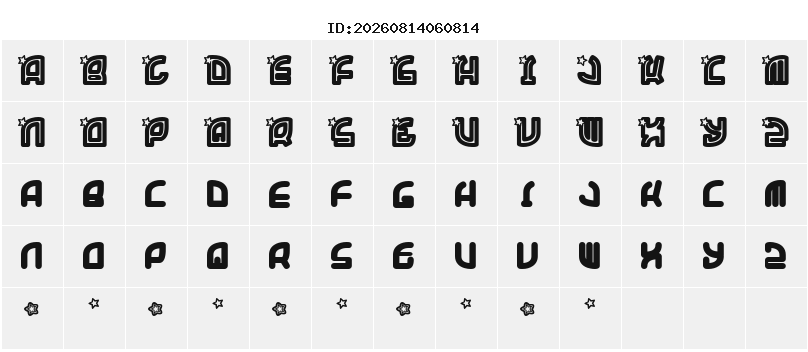
SuperTrooper Preview
• Font Name: SuperTrooper
• Full Font Name: SuperTrooper
About SuperTrooper.ttf
SuperTrooper.ttf is a modern, elegant sans-serif font designed for ultimate readability and visual harmony. Perfect for branding, headlines, web design, and print materials.